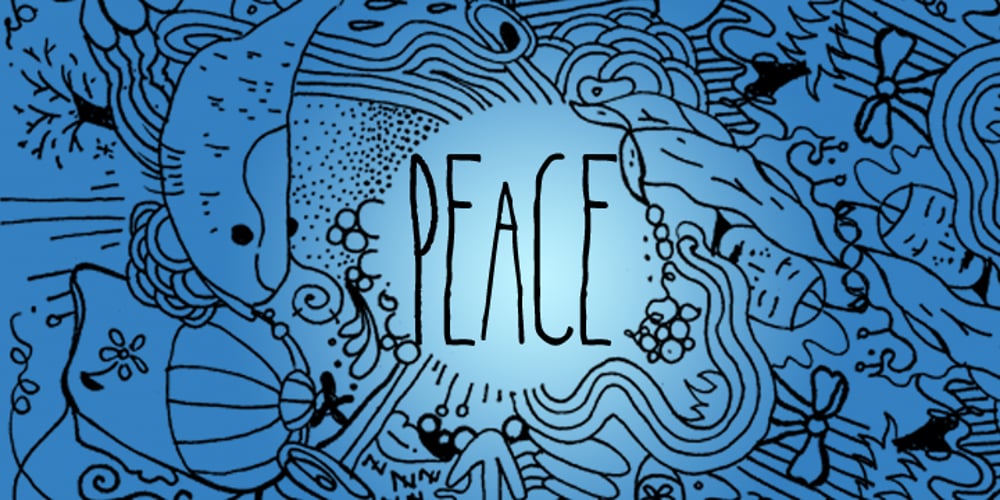
Right Height
Right Height font
Right Height Font Family was designed by Jennifer DeAngelis Gunn and published by J. DeAngelis Design. Right Height contains 2 styles and family package options. A carefully created font. Right Height font is a unique handwriting font with quirky moments.